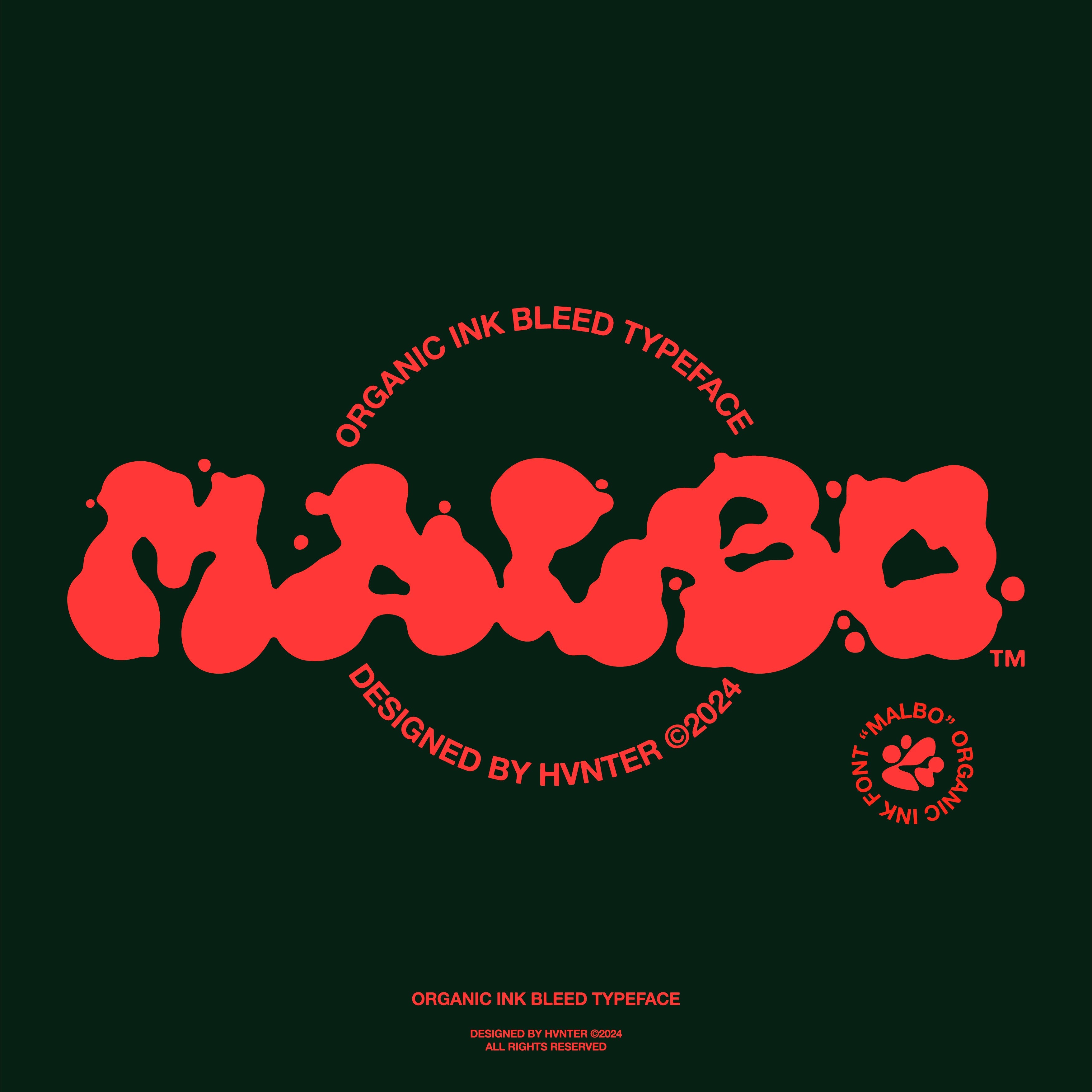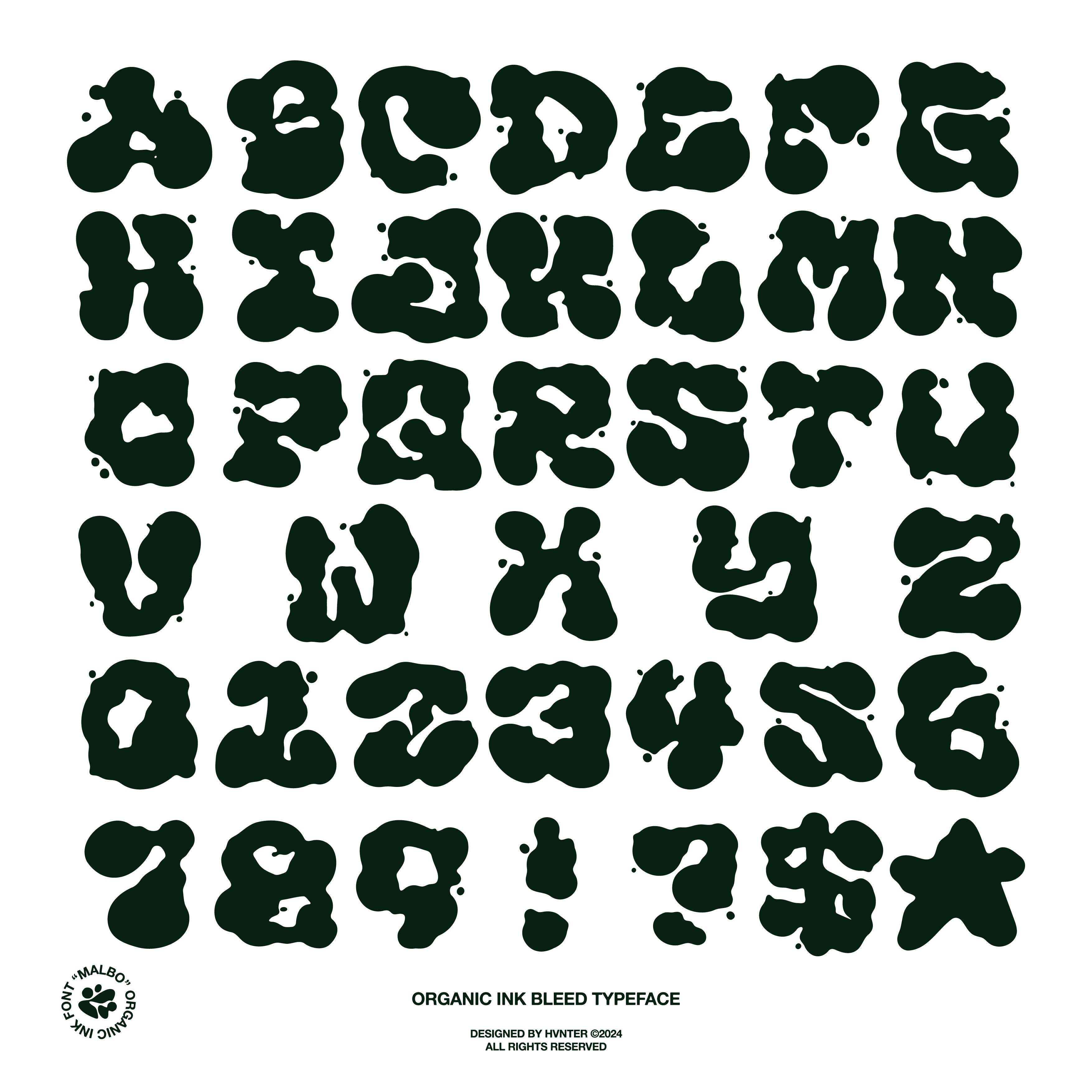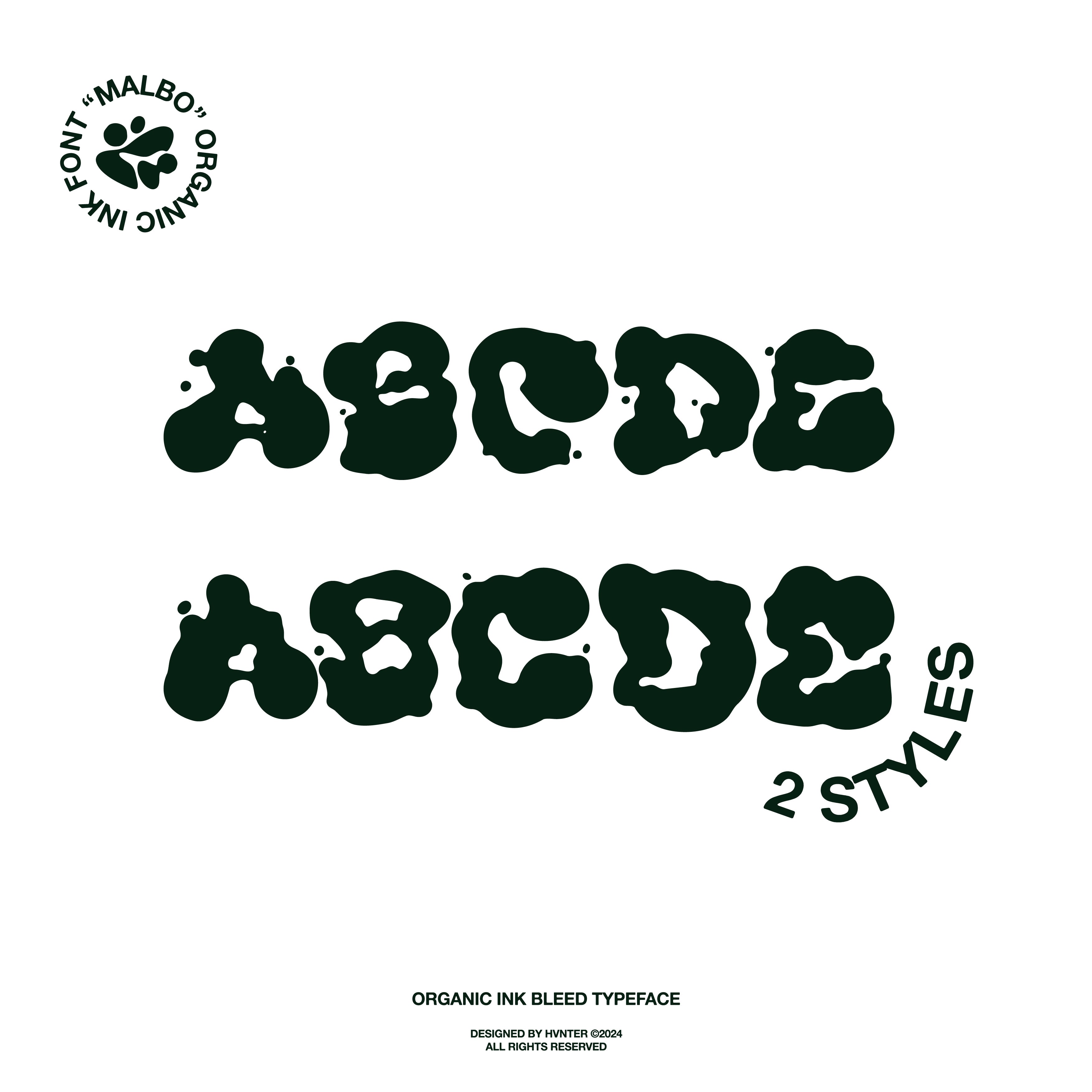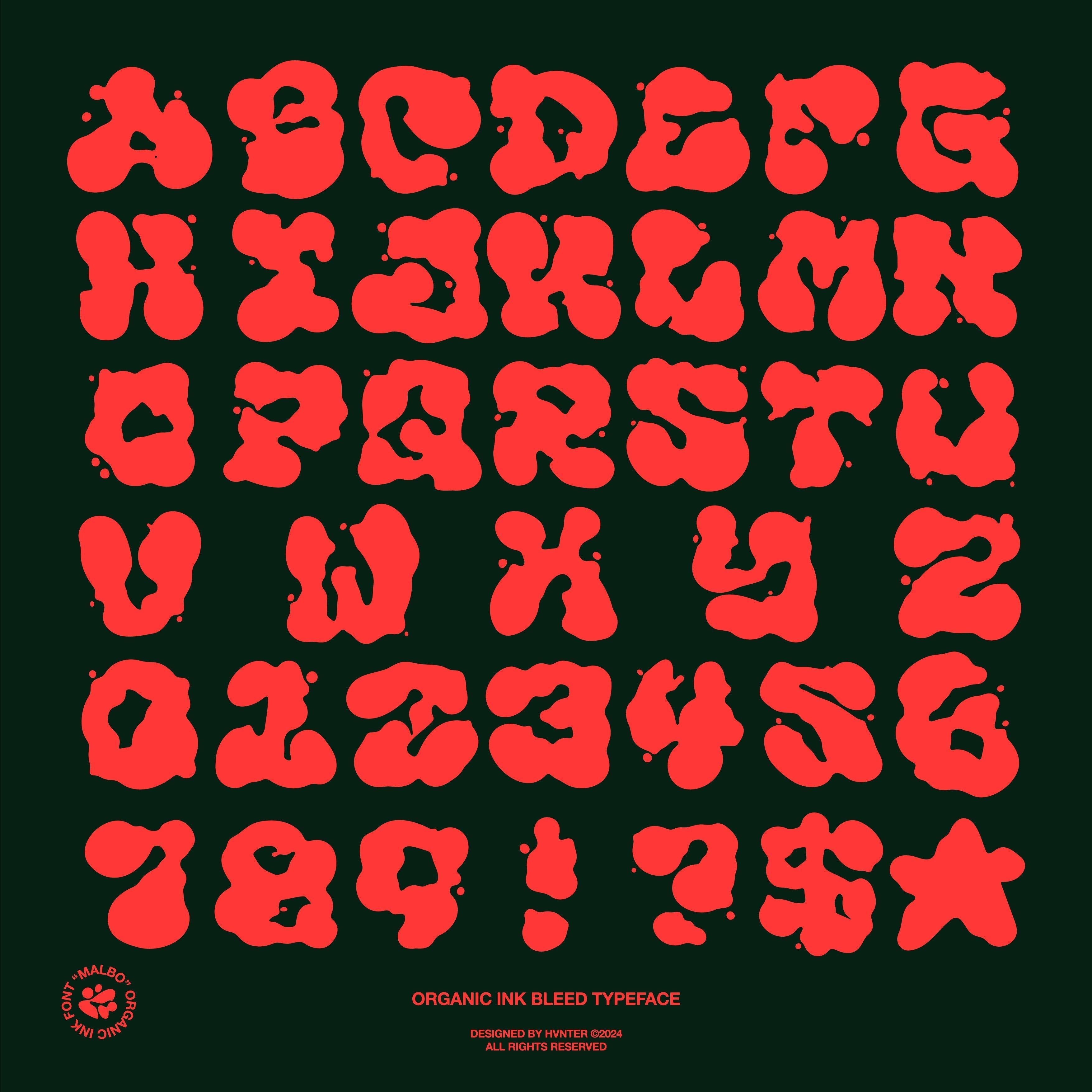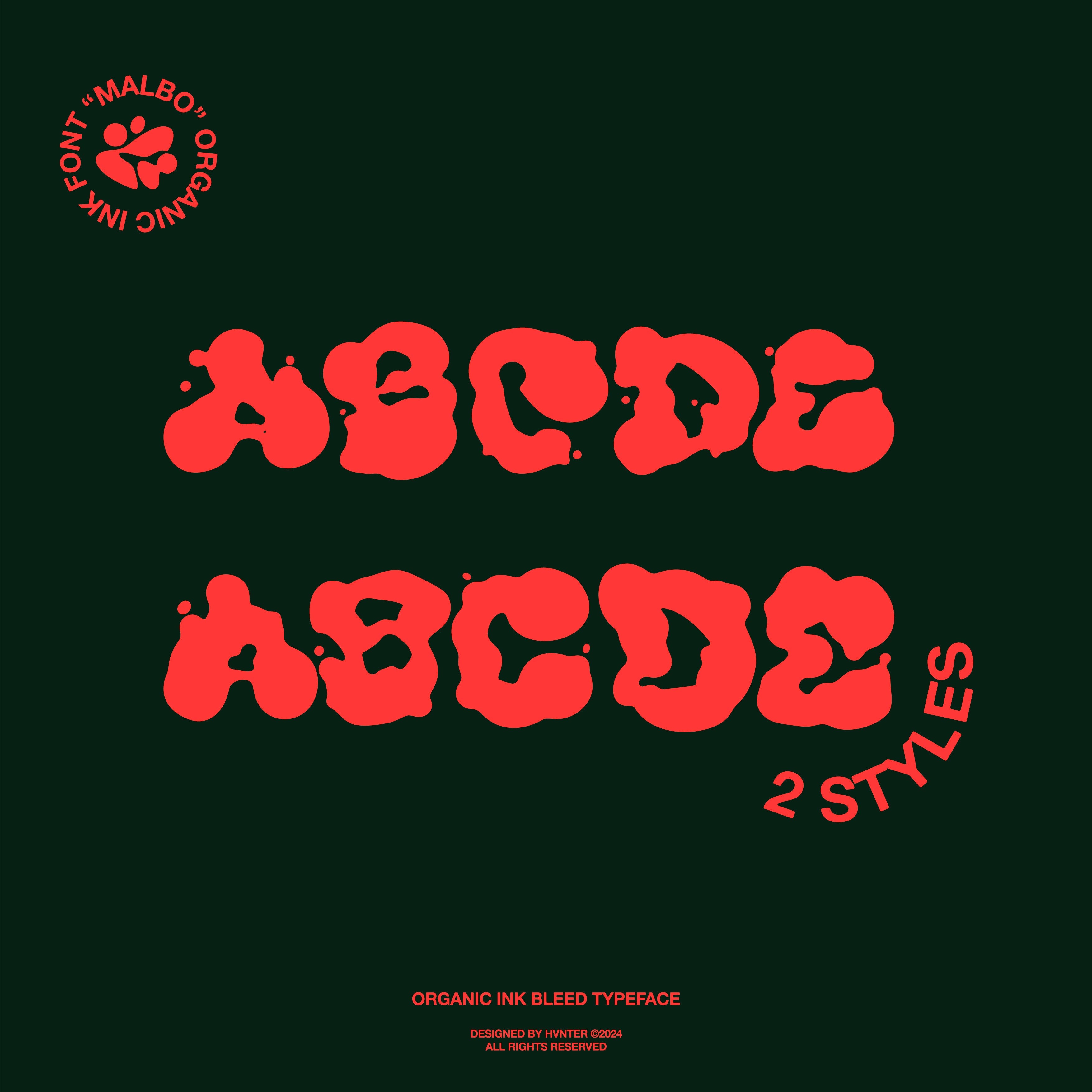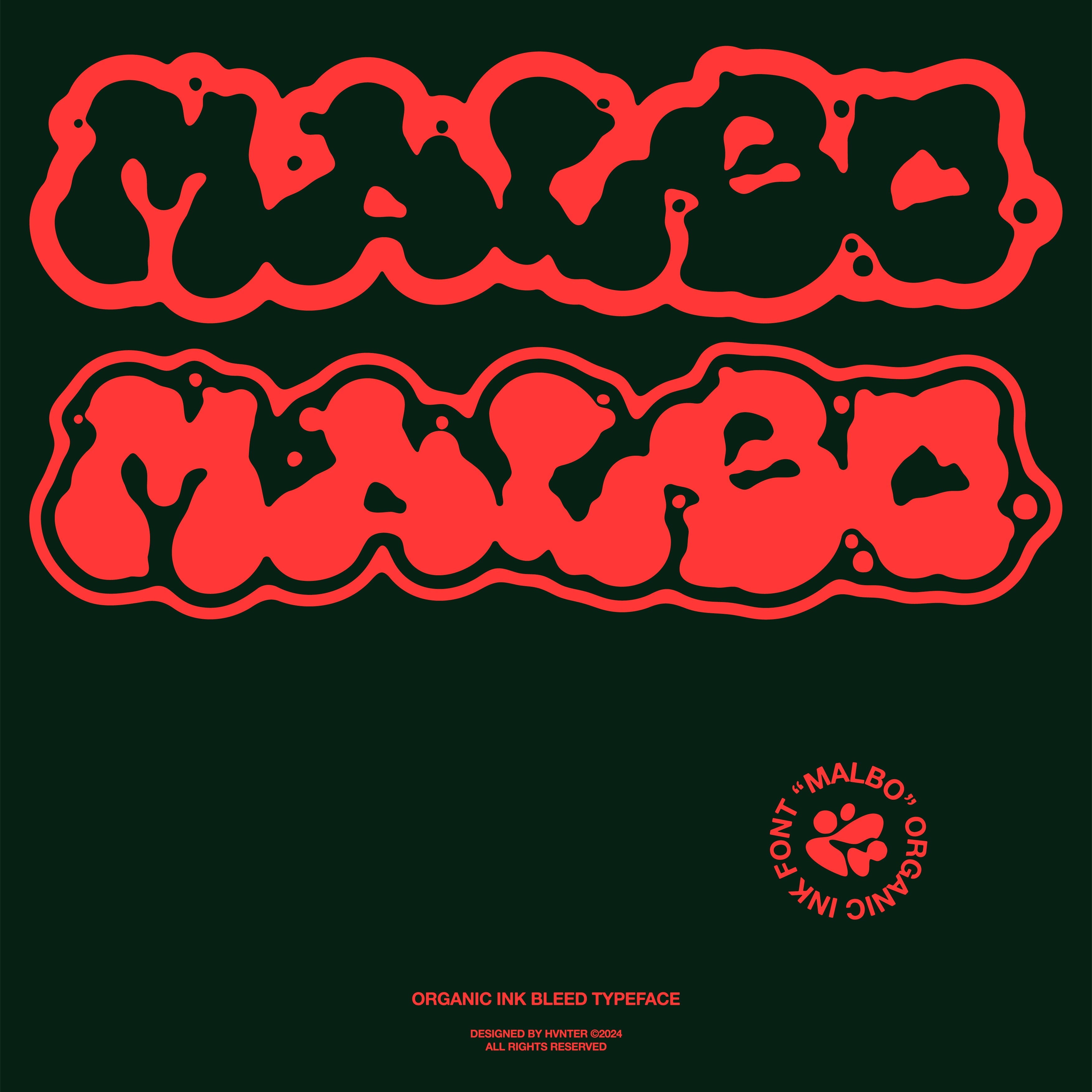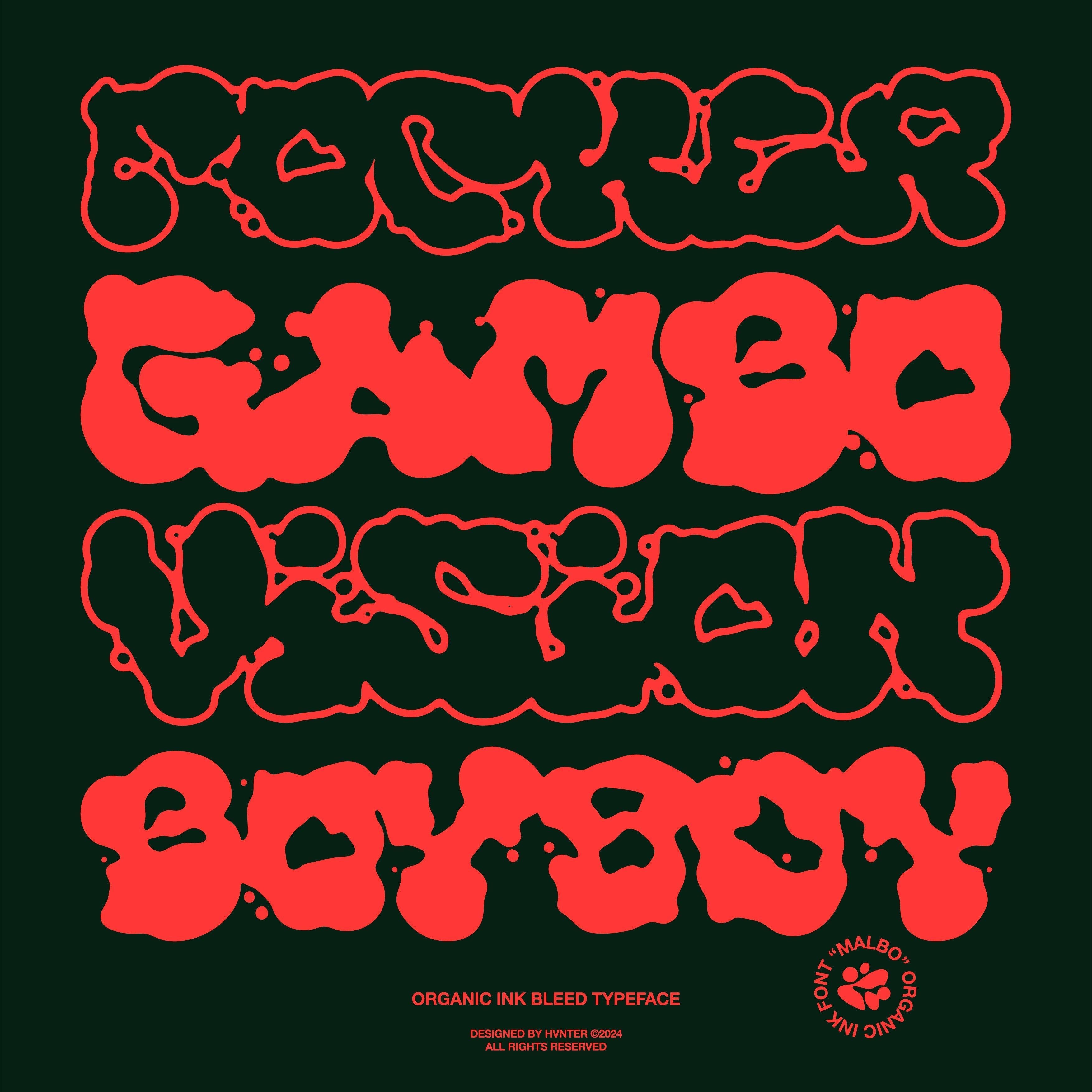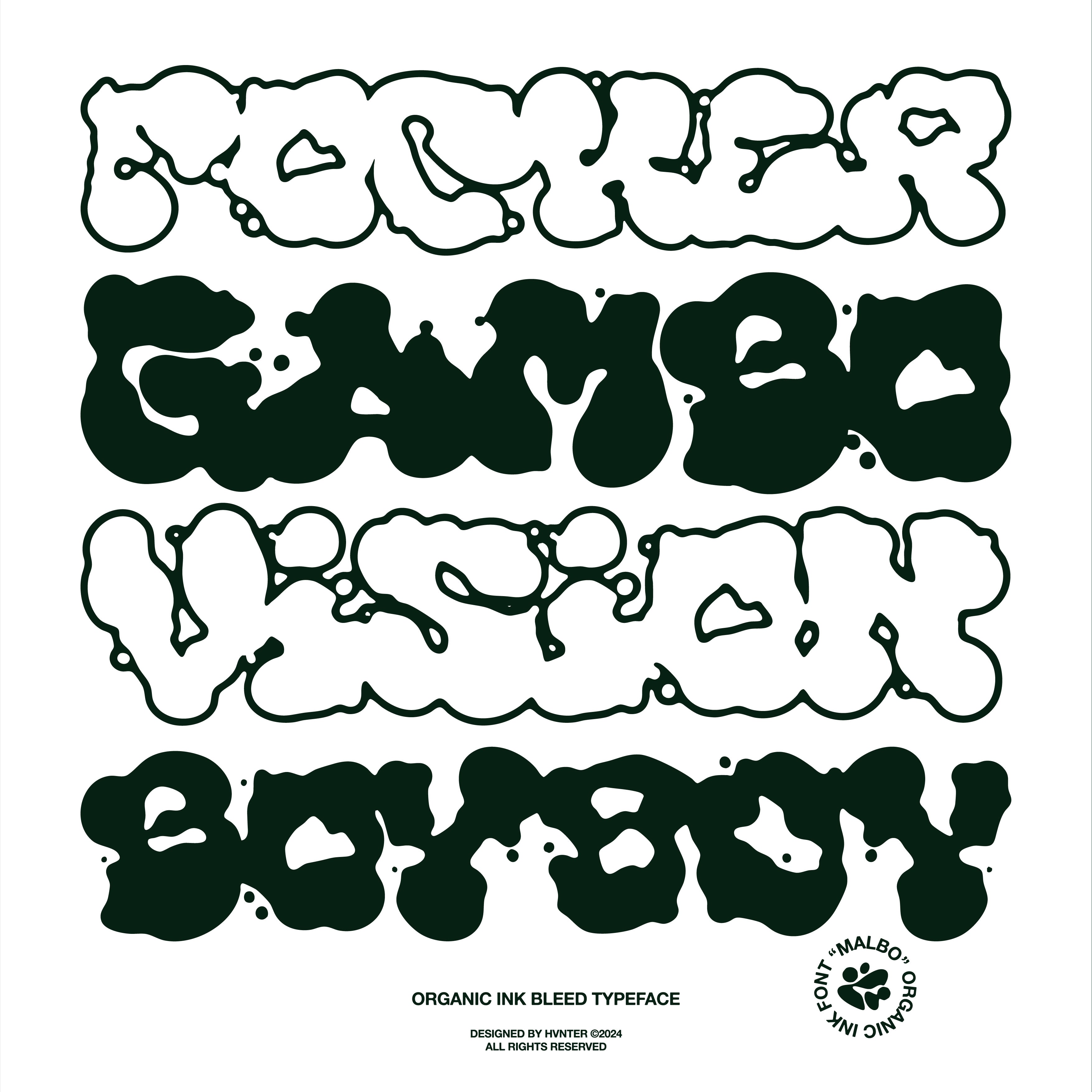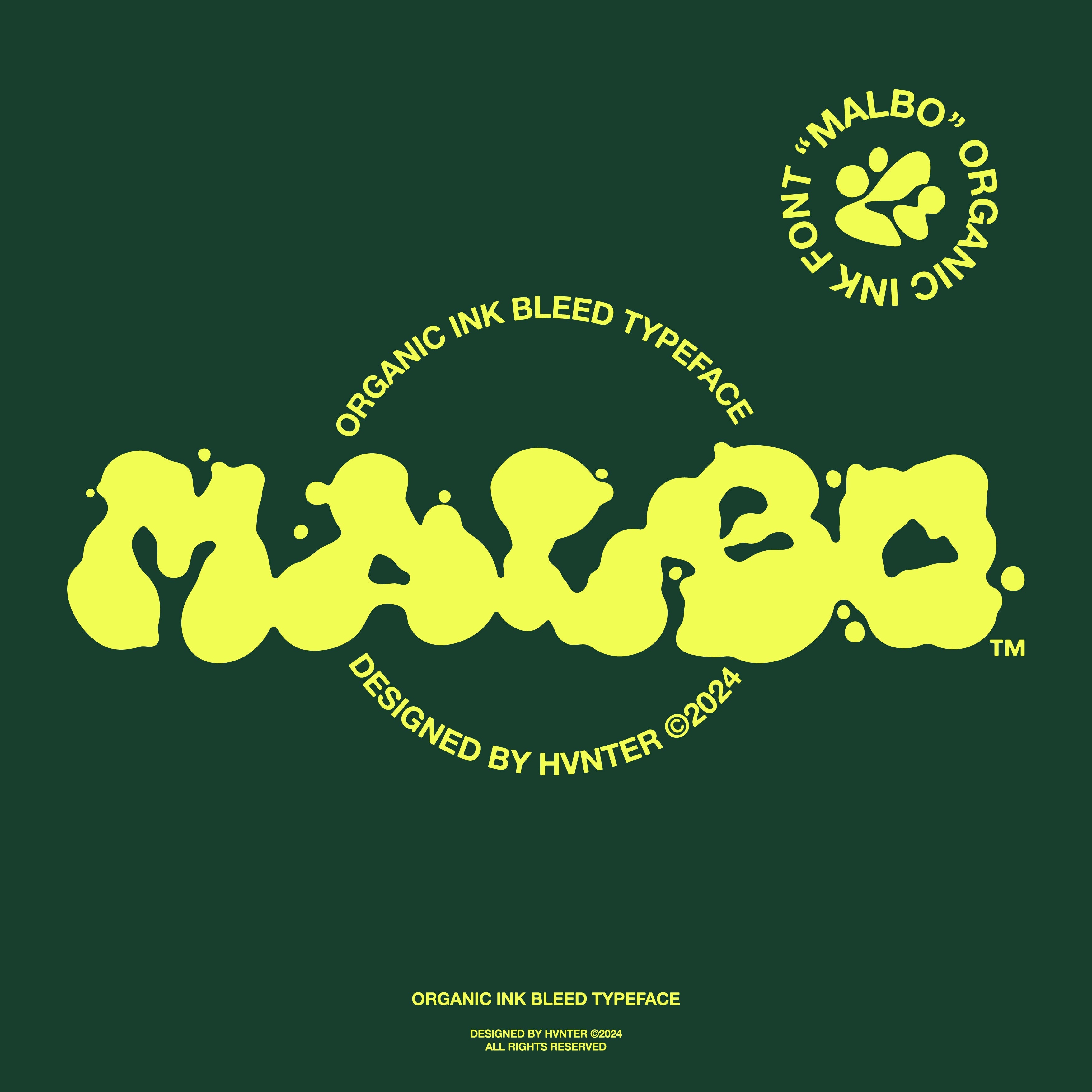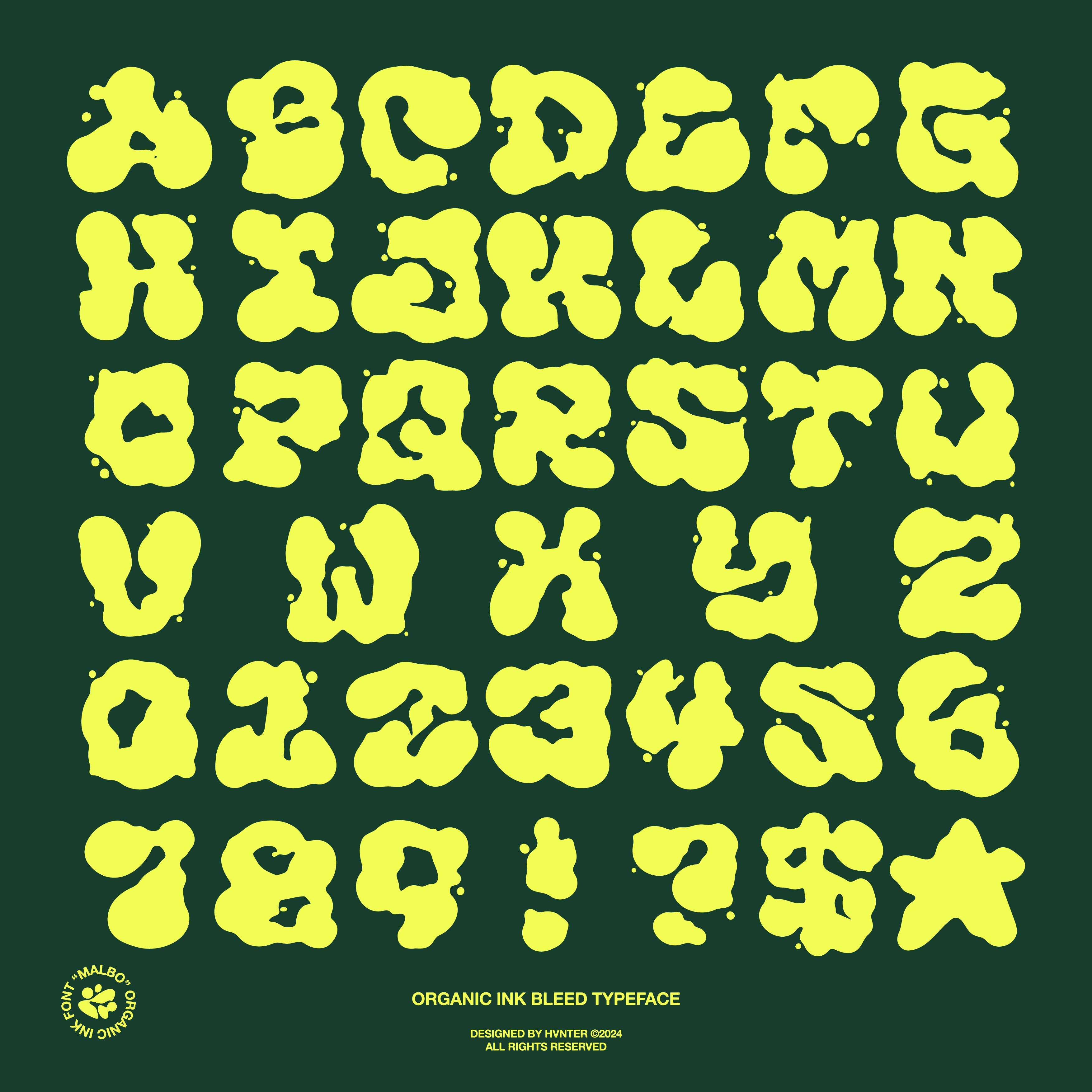
Malbo Typeface
Malbo ink bleed typeface!
Includes 2 styles of: A-Z, 0-9 + Basic Symbols.
The Malbo Typeface is an ink bleed font that includes two styles of alphabets, numbers, and basic symbols. It features a bold, abstract, and cute bubble design, suitable for display and hand-drawn aesthetics.